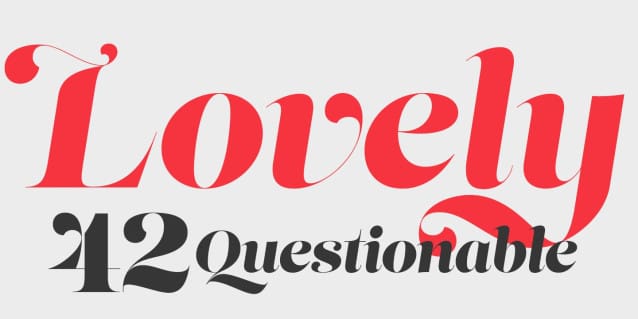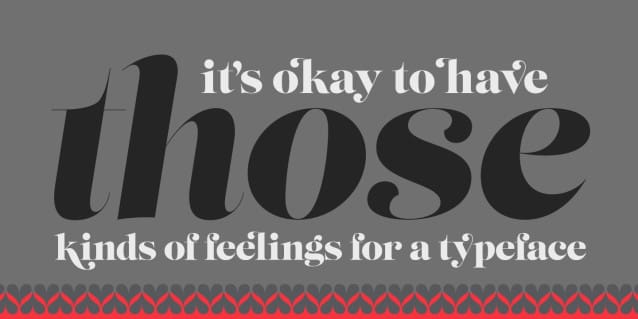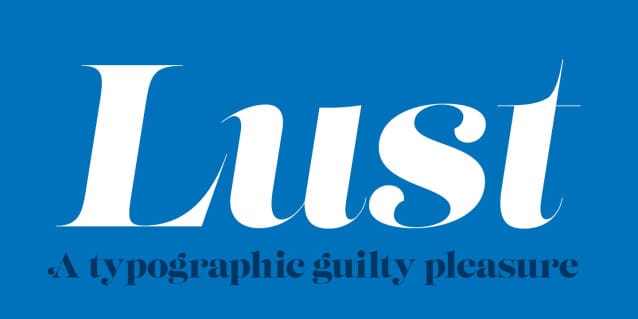
Lust Font Family
Lust Font Family is my overly indulgent attempt to infuse wanton sensuality in a typeface. I wanted to create something that was over the top but veered away from my loose “sushi” scripts, Fugu and Nori, yet was altogether reliable, without the rigidity akin to my Aaux Next series — but it had to be, well, a little sexy. The solution was to create a curvy serif. A serif would be a different endeavor for me since I consciously choose not to do many serifs — because there are so many wonderful options already! Because of this, my approach (and design) had to be different.
Here’s how I broke down what I felt it needed to have under the covers to create this “lusty” typeface: Lots of contrast, almost demure, coy contrast mixed with the flowing curves of a woman’s body, incomplete, almost teasing ball terminals, and serifs that went on forever– so sharp they would draw blood if you touched them. The result yielded a rather diverse typographic gene pool: a little Scotch Modern, a little Didone and Didot, a dominant dose of Caslon, and a pinch of Baskerville– all wrapped up in the leggy body of a Brazilian supermodel.
A confident, self-reliant typeface that shows just enough to keep everyone staring and leave them wanting more. With this design done, I moved to make it even more desirable and created the display variants with double the contrast! WARNING! I cannot stress this enough. Please know what you are getting into with this typeface. Like a supermodel, it can’t be squeezed into every situation. It needs room and size to breathe. The regular weights can support 36-point or higher settings, whereas the display weights shine above 72-point (preferably 100-point).
Lust Font is packed with alternates to play with– enough to turn you on and satisfy. Utilizing the OpenType features (and Glyph palette) wisely will have you weaving through endless variations of Stylistic, Contextual, Titling, Historical and Swash alternates– and the Italic styles feature a Contextual system that allows you to switch seamlessly between Didone and Scotch traits in order to better complement the upright variants.